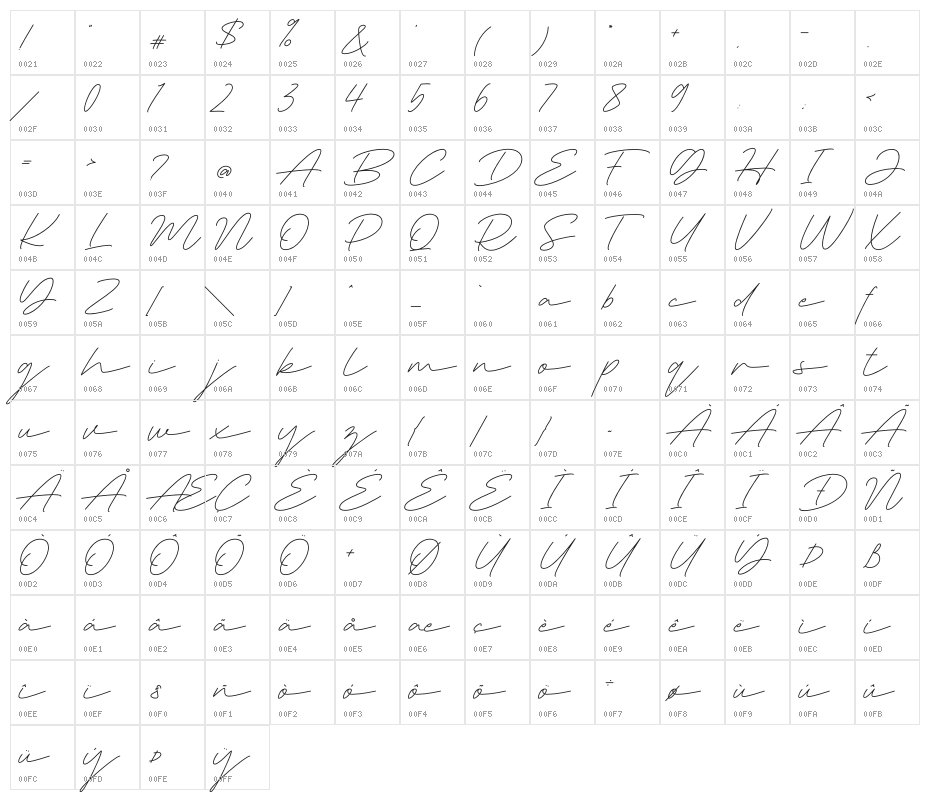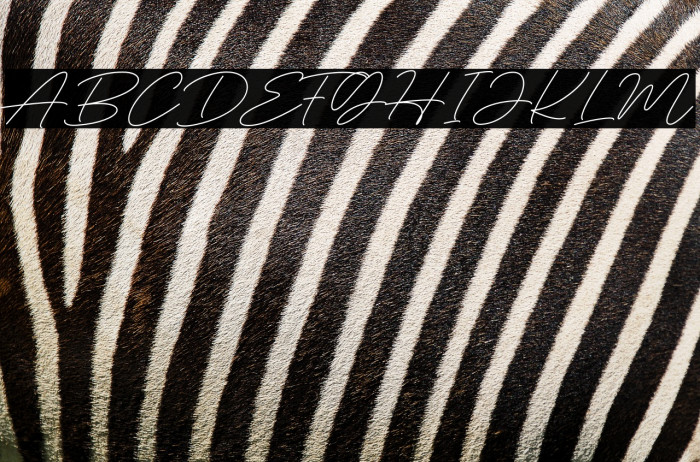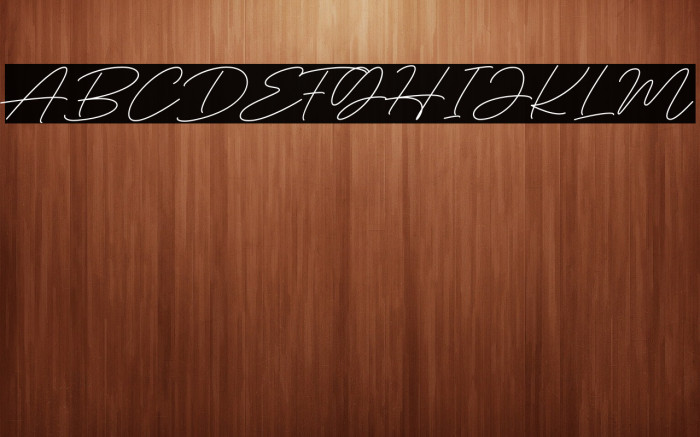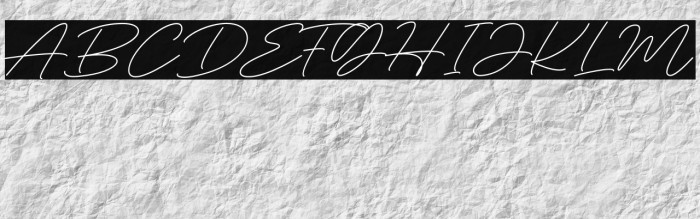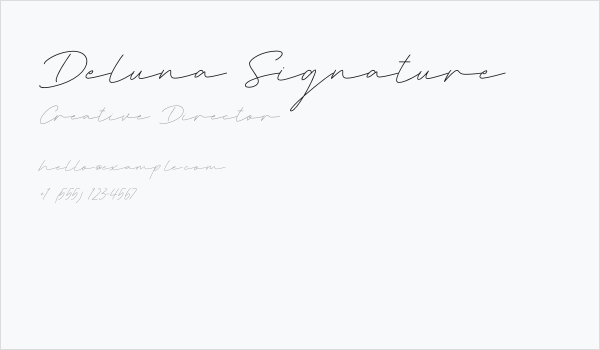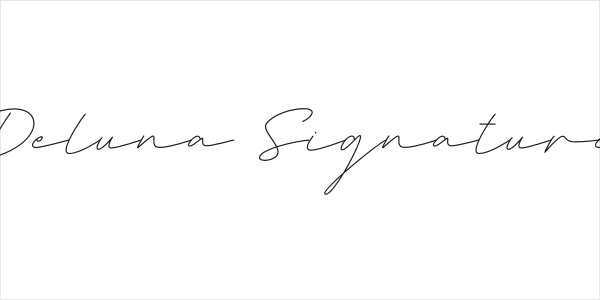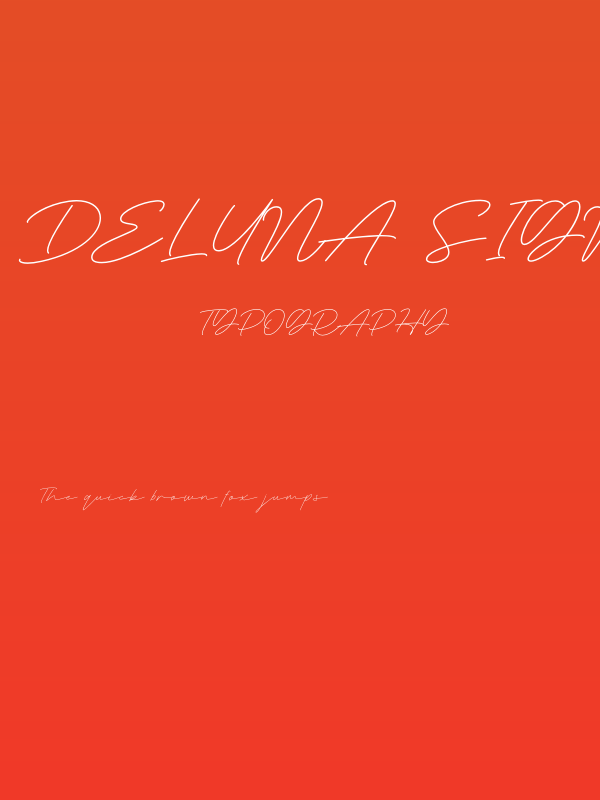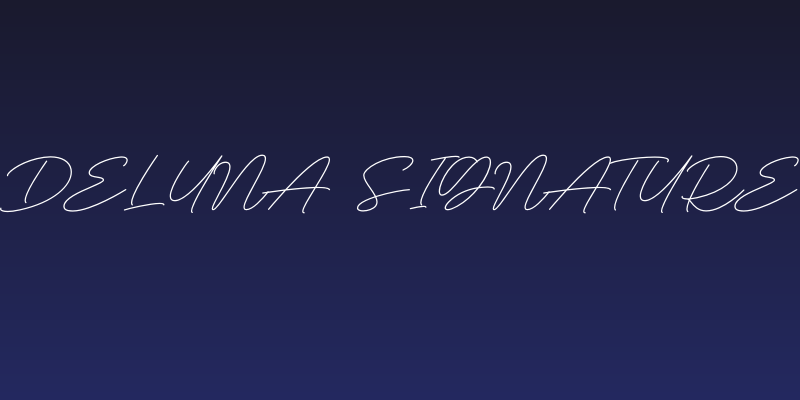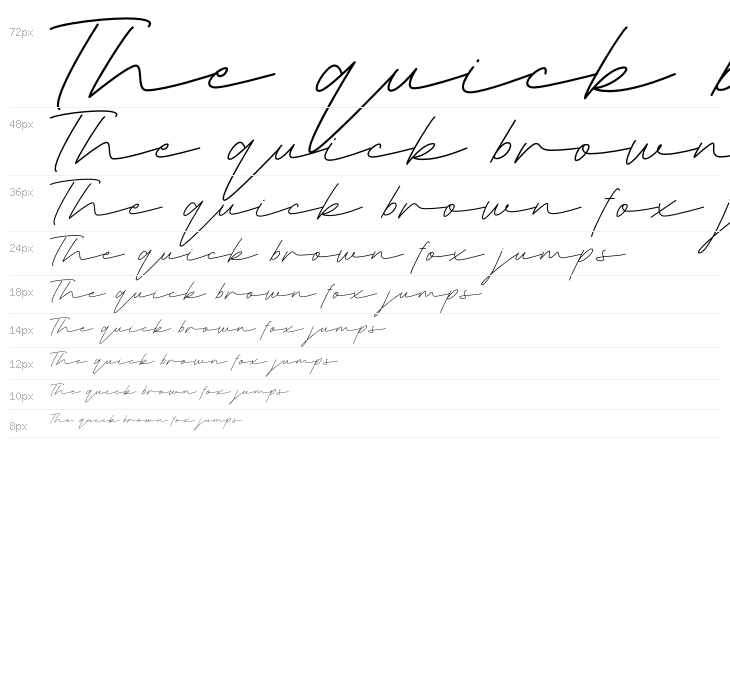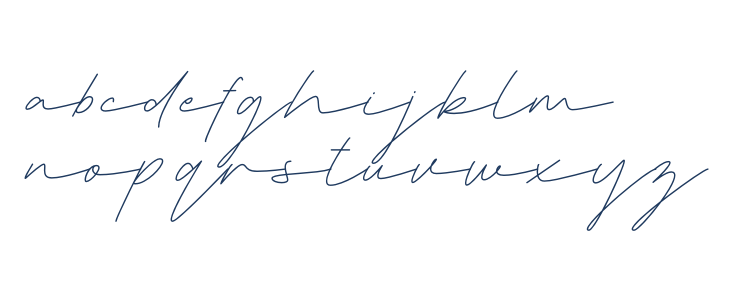
Deluna Signature Font
Deluna Signature Description
This font exudes a sophisticated and elegant handwritten style, characterized by its fluid and continuous strokes that mimic the natural flow of cursive handwriting. The letters are gracefully connected, creating a seamless and harmonious appearance. The uppercase letters maintain a consistent height, while the lowercase letters exhibit a slight slant, enhancing the overall dynamic feel. The numerals and special characters are crafted with the same attention to detail, ensuring uniformity across all elements. This font is ideal for projects that require a personal touch, such as invitations, greeting cards, and branding materials.
| Use Case | Logos, Headlines, Personal projects |
| Proposed Projects | Ideal for invitations, greeting cards, branding, and personal projects. |